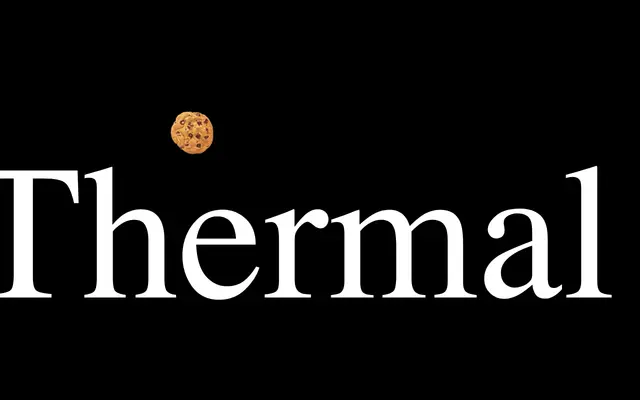
RST Thermal
A typeface from Reset Type Studio with variable axes for size, weight and optical size, suggesting a versatile grotesque built for multi-scale use.
RST Thermal exposes variable font axes for size, weight and optical size, pointing to a design intended to perform across a range of scales and settings. The sparse page content limits further detail, but the presence of an optical size axis suggests attention to legibility at both text and display sizes. Published by Reset Type Studio, a foundry focused on considered type design.
The page content is too sparse to confirm a detailed classification, but the name and foundry context suggest a grotesque or display sans-serif; categorised provisionally as sans-serif grotesque.